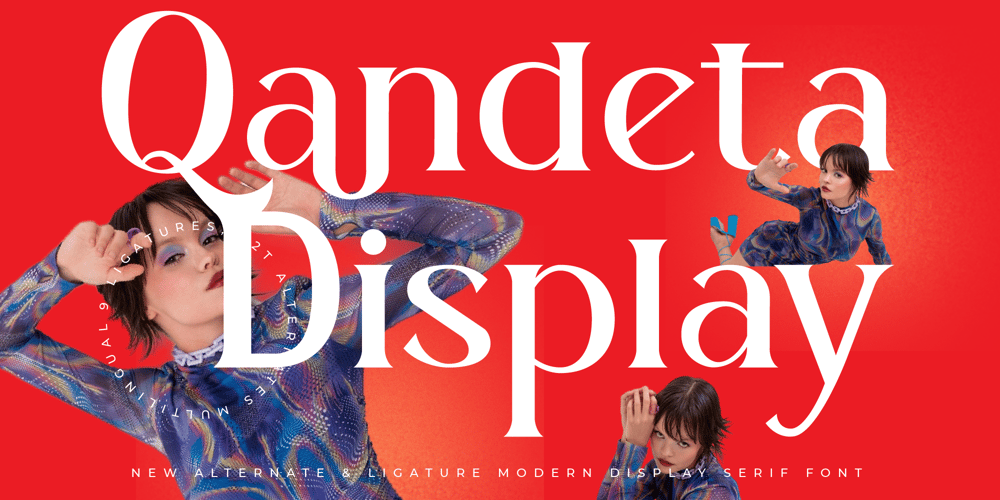
Qandeta
Qandeta font
Qandeta Font Family was designed by Shiddiq Roihan and published by Amorfa Type. Qandeta contains 2 styles and family package options. Qandetta Display Serif is a sophisticated typeface that harmoniously merges contemporary design with classic elegance. With its carefully crafted letterforms and refined serifs, Qandetta Display Serif provides a distinctive and luxurious appearance, perfect for making a statement in high-profile branding, premium editorial work, and stylish invitations. This typeface captures a balance of modern innovation and timeless grace, ensuring that your designs stand out with a touch of refined sophistication. Elevate your projects with Qandetta Display Serif, where modern creativity meets enduring charm.